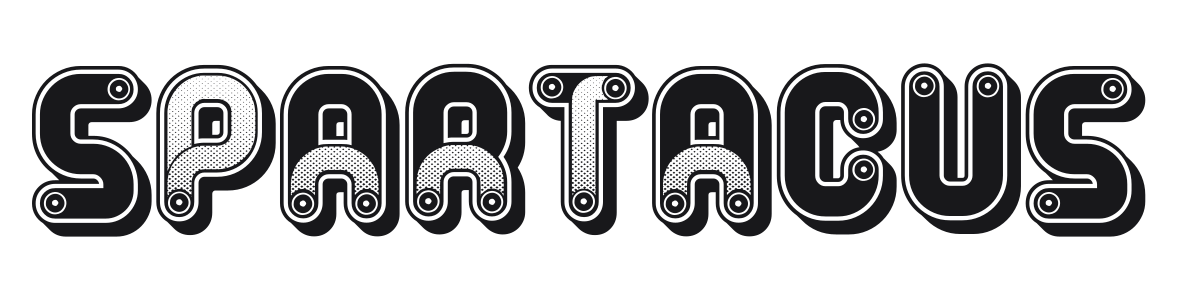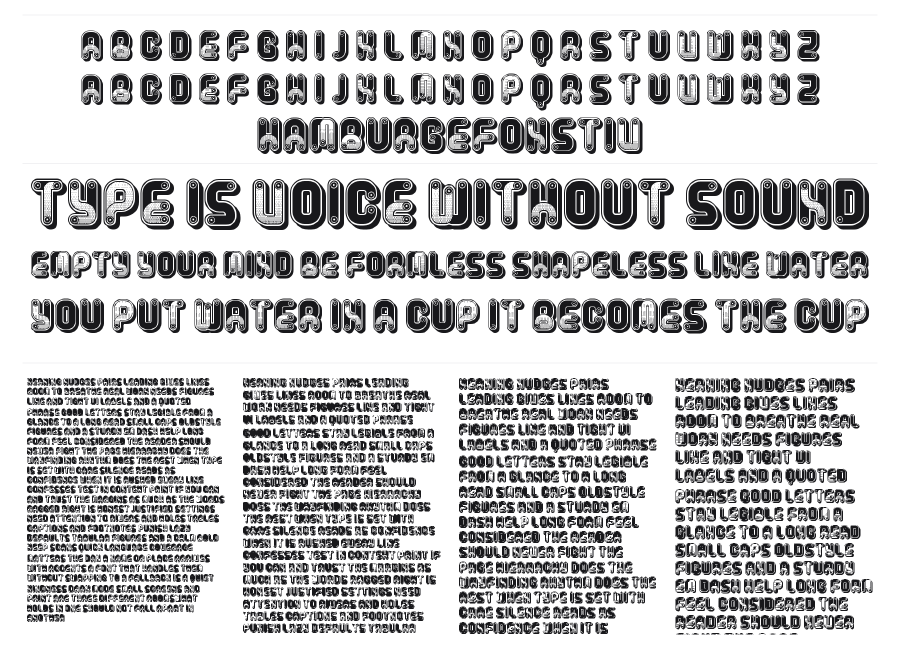
Spartacus
Spartacus is a thick, rounded retro display font with an elaborate inline stripe pattern and circular corner details that channel pure 1970s groovy energy. Each character is built up in layers with a chunky drop shadow, giving the design a dimensional, almost inflated quality. It works best at large sizes where the concentric details can breathe.